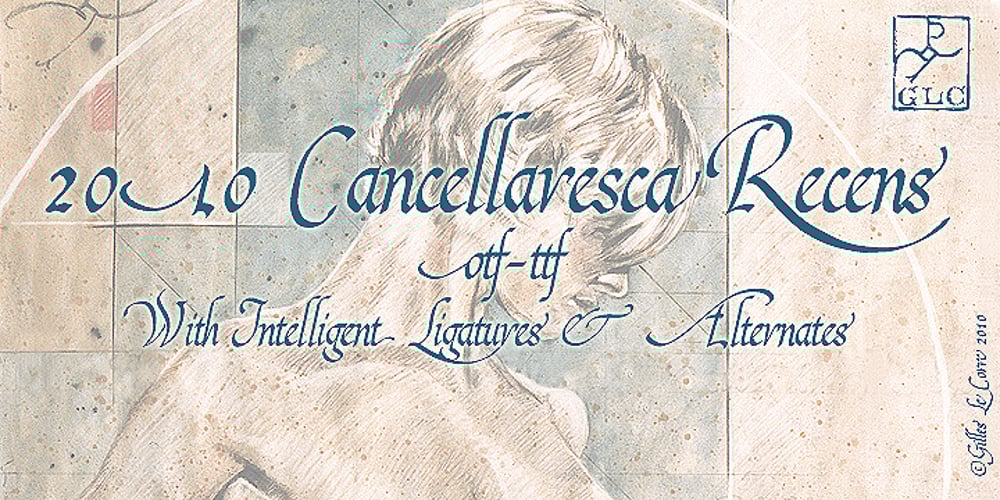
2010 Cancellaresca Recens
2010 Cancellaresca Recens font
2010 Cancellaresca Recens Font Family was designed by published by GLC. 2010 Cancellaresca Recens contains 1 styles and family package options. This font was inspired by the Cancellaresca pattern (look at our 1491 Cancellaresca and 1610 Cancellaresca), in particular Spanish one, from Francisco Lucas, who was working in the late 1500s. It is a modern variation, including West European accented characters and a lot of initial and final alternates (not in the Mac TT version for technical reasons).